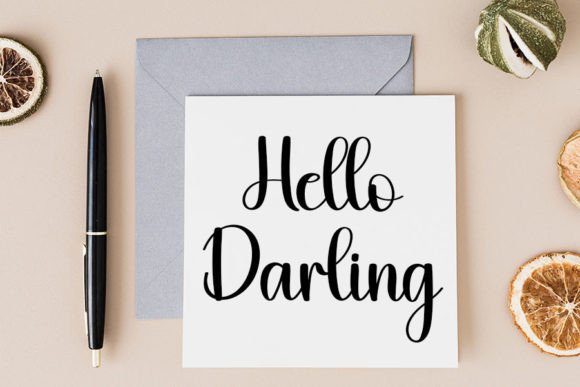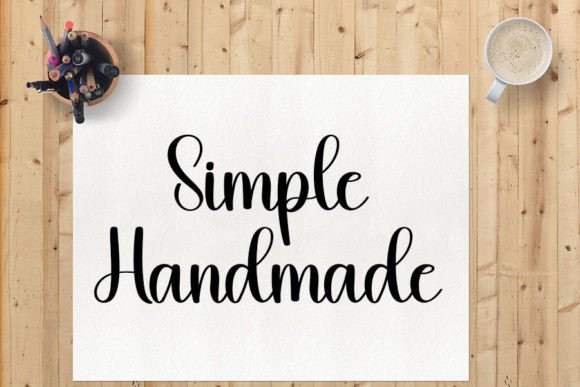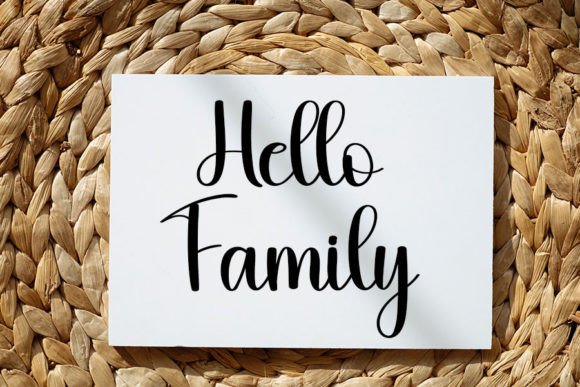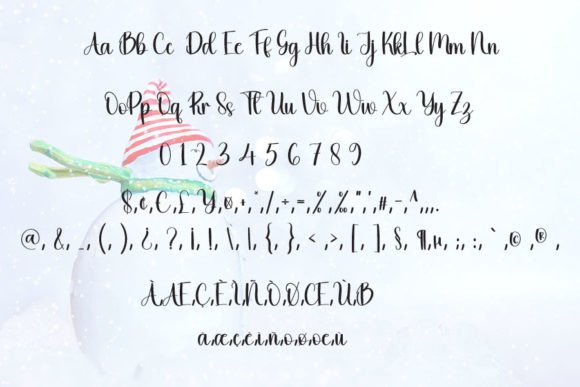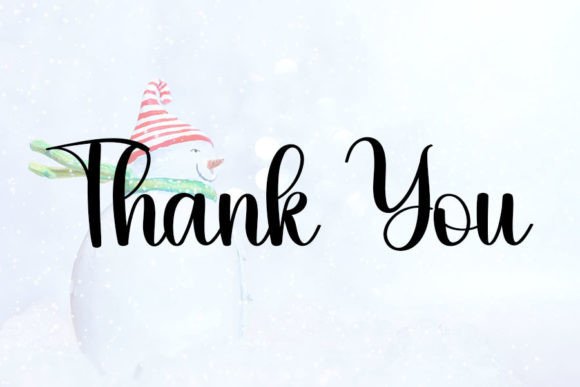
Introducing Comedy Font: The Ultimate Handwritten Font for Designers and Crafters
Are you tired of using the same old fonts for your designs and crafts? Look no further! Comedy Font is a fun and friendly handwritten font that’s perfect for adding a personal touch to your projects. Whether you’re a designer, crafter, or simply someone who loves to get creative, this font is sure to become your new go-to.
What is Comedy Font?
Comedy Font is a beautiful, handwritten font that’s designed to bring a smile to your face. Its playful and carefree vibe makes it perfect for a wide range of projects, from digital designs and presentations to crafts and greeting cards. With its unique and quirky style, Comedy Font is sure to add a touch of personality to any design.
Features of Comedy Font
- Handwritten style: Comedy Font has a beautiful, handwritten style that’s perfect for adding a personal touch to your designs.
- Fun and friendly vibe: This font has a playful and carefree vibe that’s sure to bring a smile to your face.
- Versatile: Comedy Font is perfect for a wide range of projects, from digital designs and presentations to crafts and greeting cards.
- Easy to read: Despite its playful style, Comedy Font is easy to read, making it perfect for use in body text.
Uses for Comedy Font
Comedy Font is perfect for a wide range of projects, including:
- Crafts: Use Comedy Font to add a personal touch to your crafts, such as scrapbooking, card making, and DIY projects.
- Digital design: Add a playful touch to your digital designs, such as social media graphics, blog posts, and website headers.
- Presentations: Use Comedy Font to add some personality to your presentations and make them more engaging.
- Greeting cards: Create fun and playful greeting cards for special occasions, such as birthdays, holidays, and graduations.
Why Choose Comedy Font?
There are many reasons why Comedy Font is the perfect choice for designers and crafters. Here are just a few:
- Unique style: Comedy Font has a unique and quirky style that’s sure to stand out from the crowd.
- Versatile: Comedy Font can be used for a wide range of projects, making it a great addition to any design or crafting toolkit.
- Fun and playful: This font is perfect for adding a touch of personality and whimsy to your designs.
Tips for Using Comedy Font
Here are a few tips for getting the most out of Comedy Font:
- Use it sparingly: While Comedy Font is fun and playful, it can be overwhelming if used too much. Use it sparingly to add a touch of personality to your designs.
- Pair it with other fonts: Comedy Font pairs well with other fonts, such as sans serif fonts and script fonts. Experiment with different pairings to find the perfect combination.
- Experiment with colors: Comedy Font looks great in a variety of colors, from bright and bold to pastel and soft. Experiment with different colors to find the perfect look for your design.
Comedy Font is a fun and friendly handwritten font that’s perfect for designers and crafters. Its unique and quirky style makes it perfect for adding a touch of personality to your designs, and its versatility makes it suitable for a wide range of projects. Whether you’re using it for crafts, digital design, presentations, or making greeting cards, Comedy Font is sure to become your new go-to font.